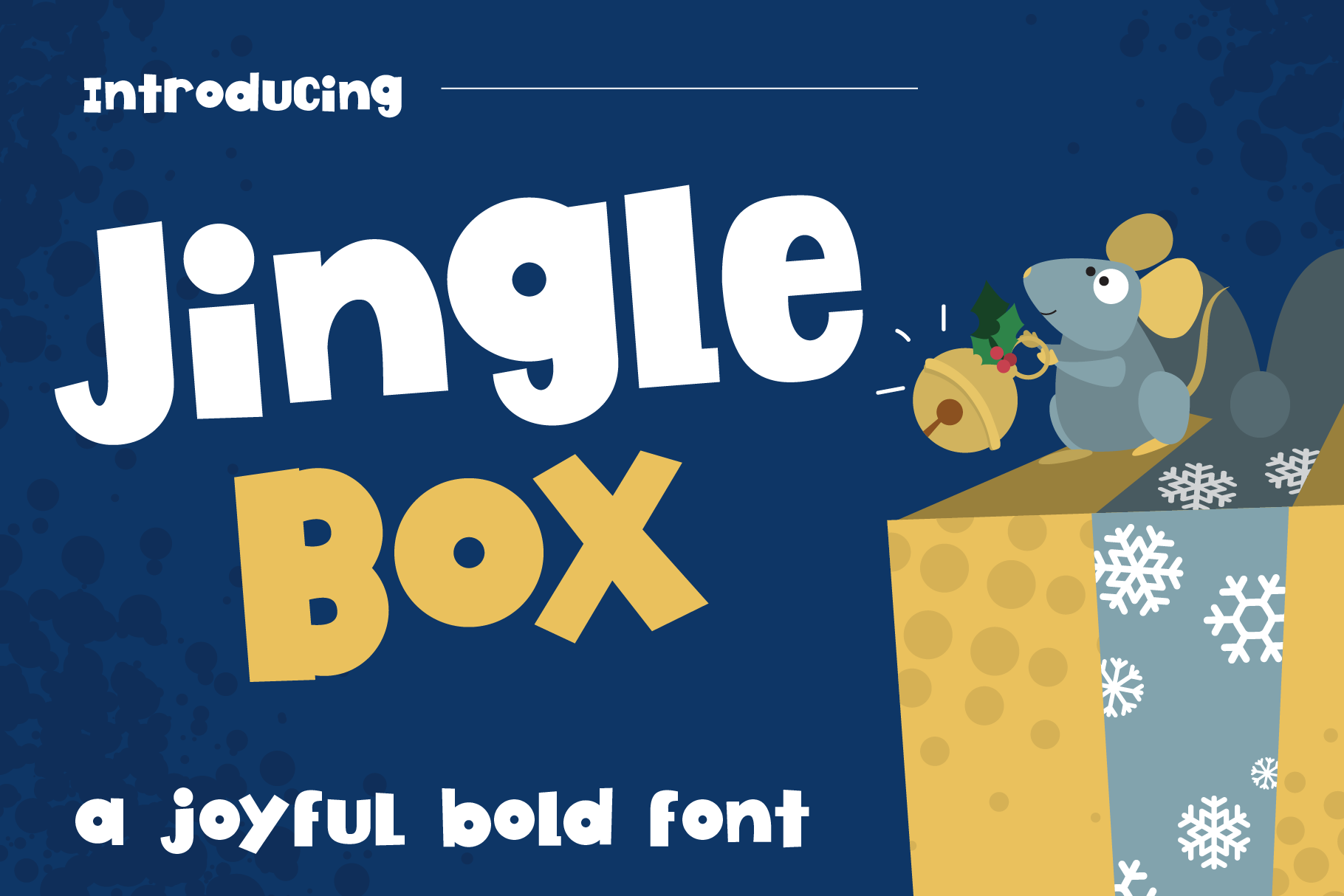
Jingle Box Bold Font
Introducing, Jingle Box!. I wanted to create a font that thick, bold, and fun. With its roundness and sharp corners, this font gives off a whimsical childlike message. This PUA font is perfect for professional designers, social media, or crafters.